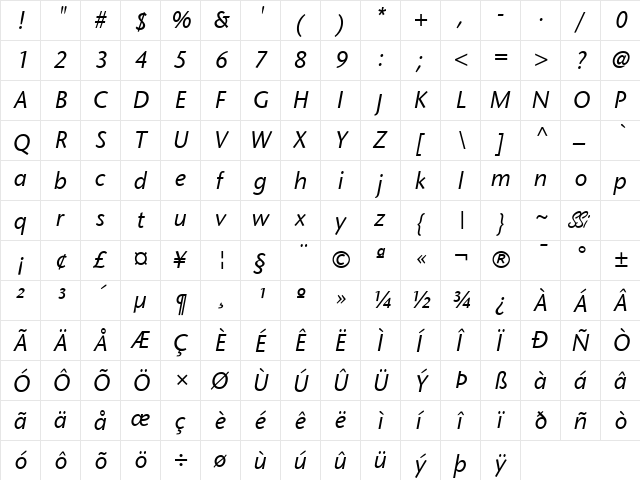
Mesouran Sans SSi Italic
Design Context for Mesouran Sans SSi Typeface
Mesouran Sans SSi offers clean, dependable letterforms without strong stylistic allegiance, making it a practical choice for designers who need flexibility. Its italic angle brings a sense of urgency and motion to the letterforms.